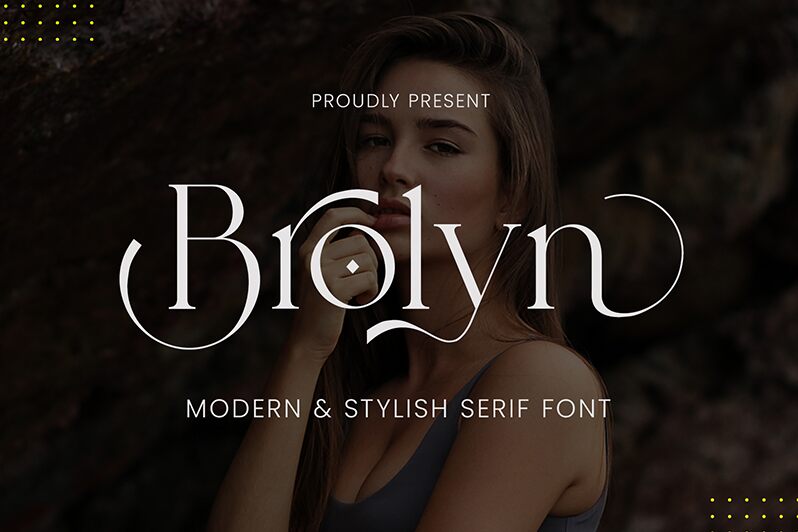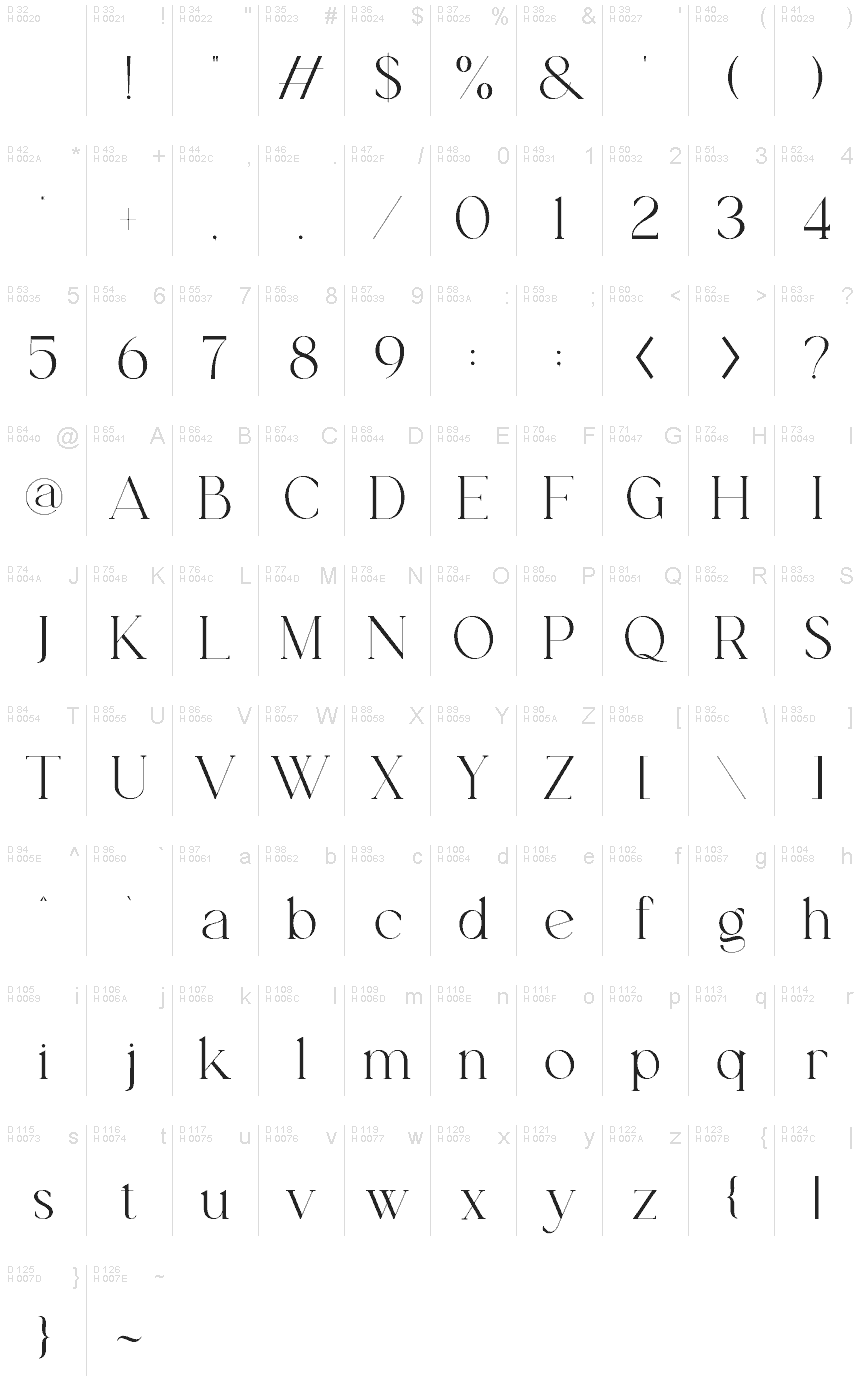
Brolyn
Brolyn font by Ahmad Riqi is an elegant and sophisticated serif typeface that brings a perfect combination of classic style with modern versatility. The light font has a refined appearance with the presentation of smooth curves and delicate design elements.
Incorporate this free light serif font into your magazine covers, business cards, product packaging designs, restaurant menus, skincare branding projects, website headers, posters, invitation templates, or personal identity artwork.